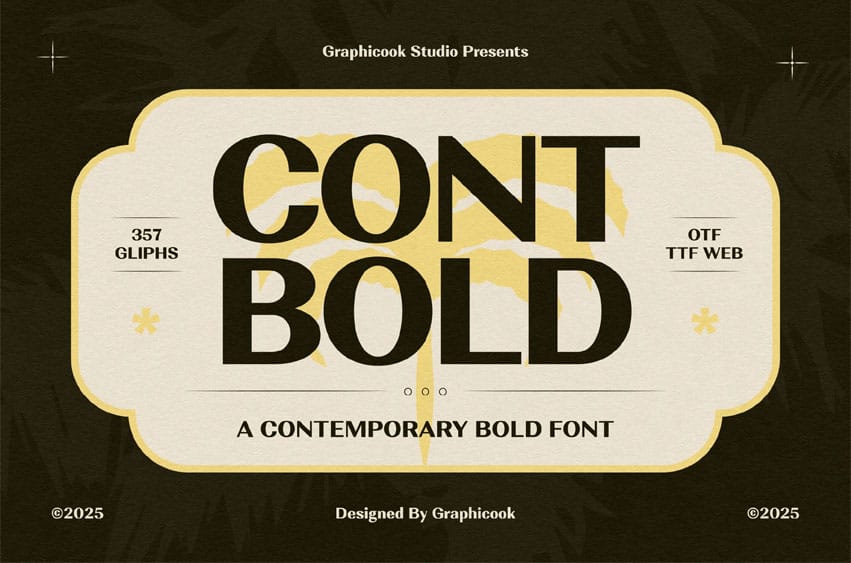
Contbold Font is a sans-serif font with a subtle, understated character that remains highly readable at various sizes. Styled with a classic vintage touch, it’s ideal for elegant and timeless design themes.
Contbold is perfect for headlines, logotypes, magazines, packaging, quotes, movies, games, cover albums, book covers, and flyers, it’s a perfect solution for creating eye-catching designs that stand out in any context.